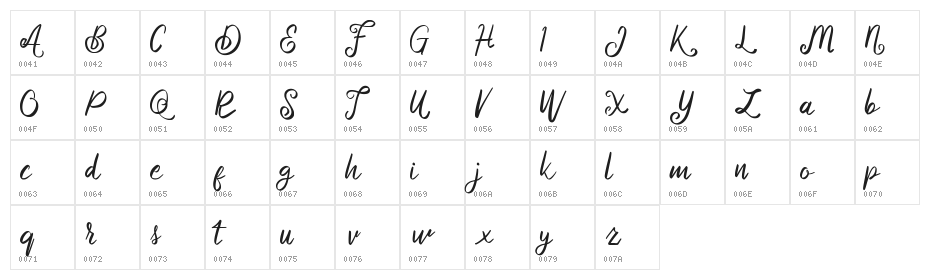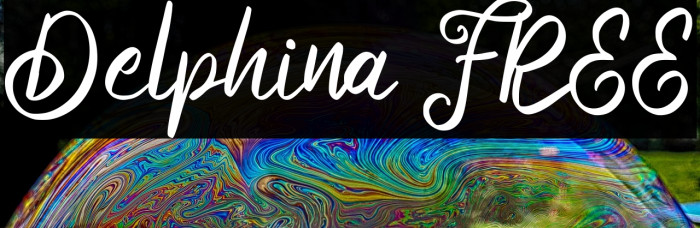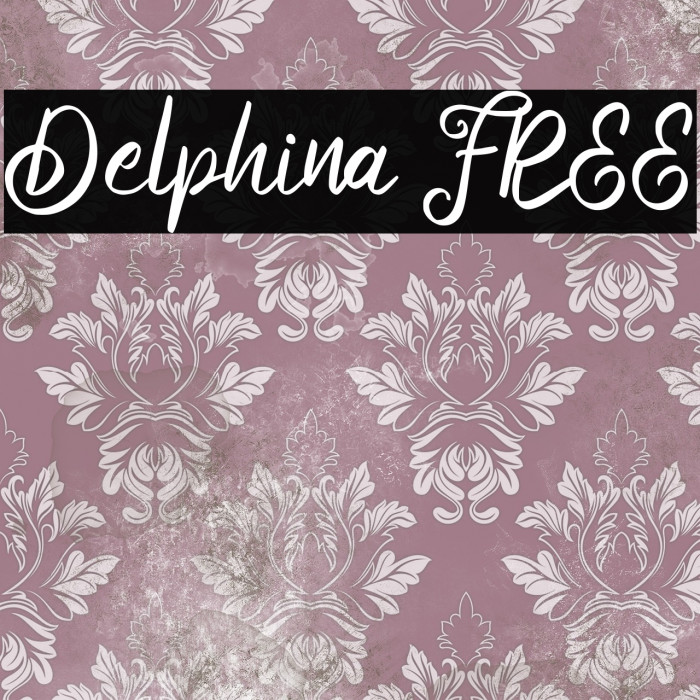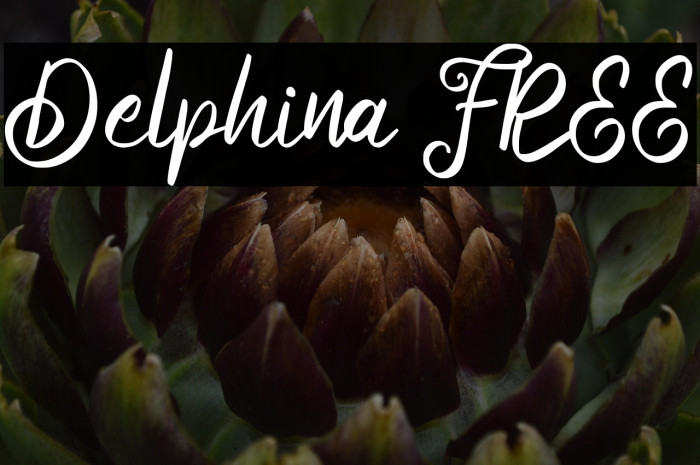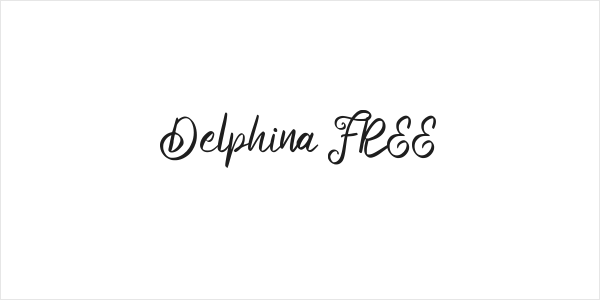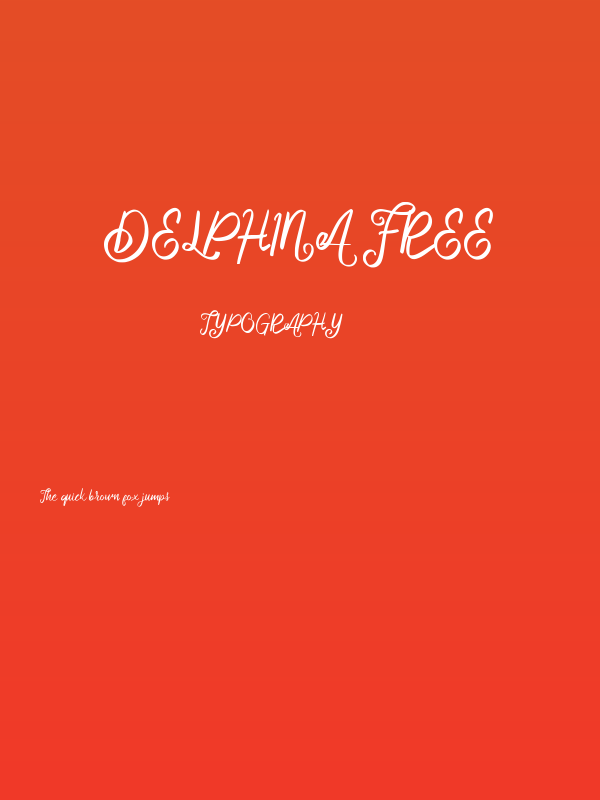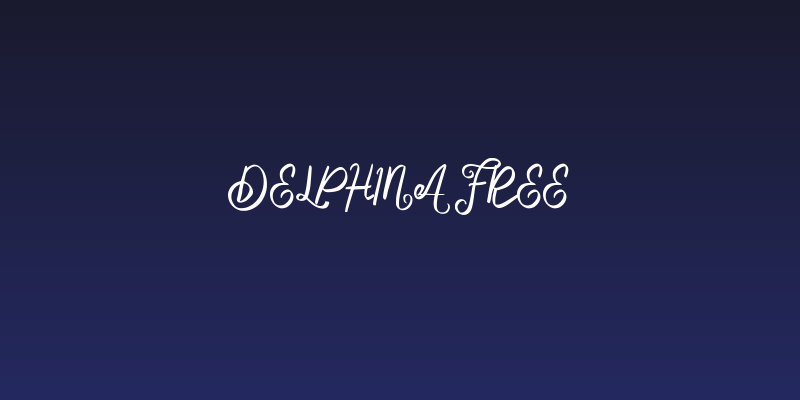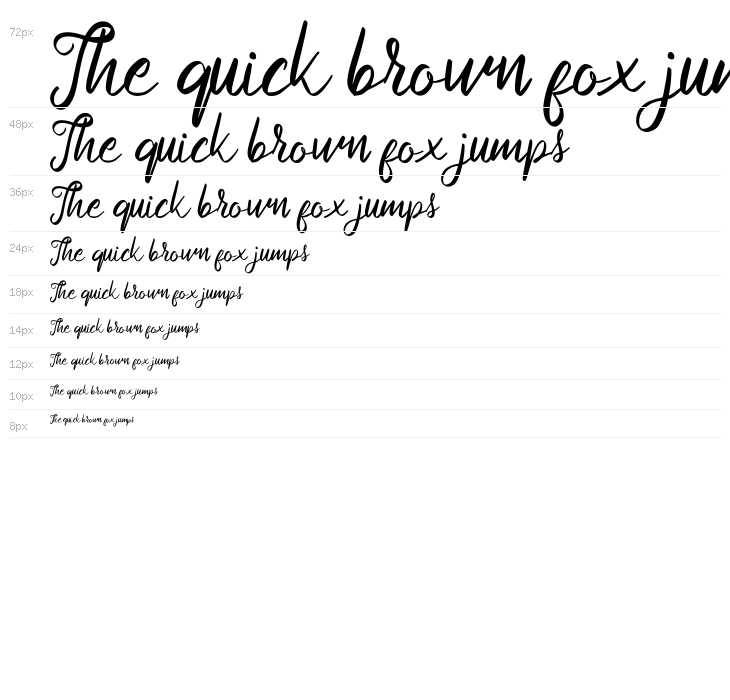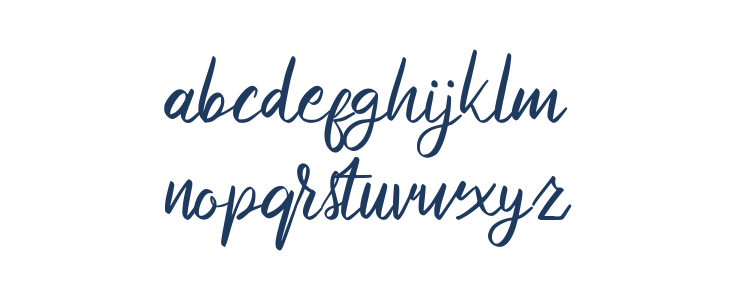
Delphina FREE Font
Delphina FREE Description
This font is a stylish and elegant script typeface that features flowing, interconnected letters with a calligraphic flair. The uppercase letters are ornate, with intricate loops and swirls that add a touch of sophistication. The lowercase letters maintain a consistent flow, enhancing readability while preserving the decorative style. The numerals and special characters are designed to complement the overall aesthetic, making this font versatile for various design needs. Its artistic nature makes it suitable for creative projects that require a personal and elegant touch.